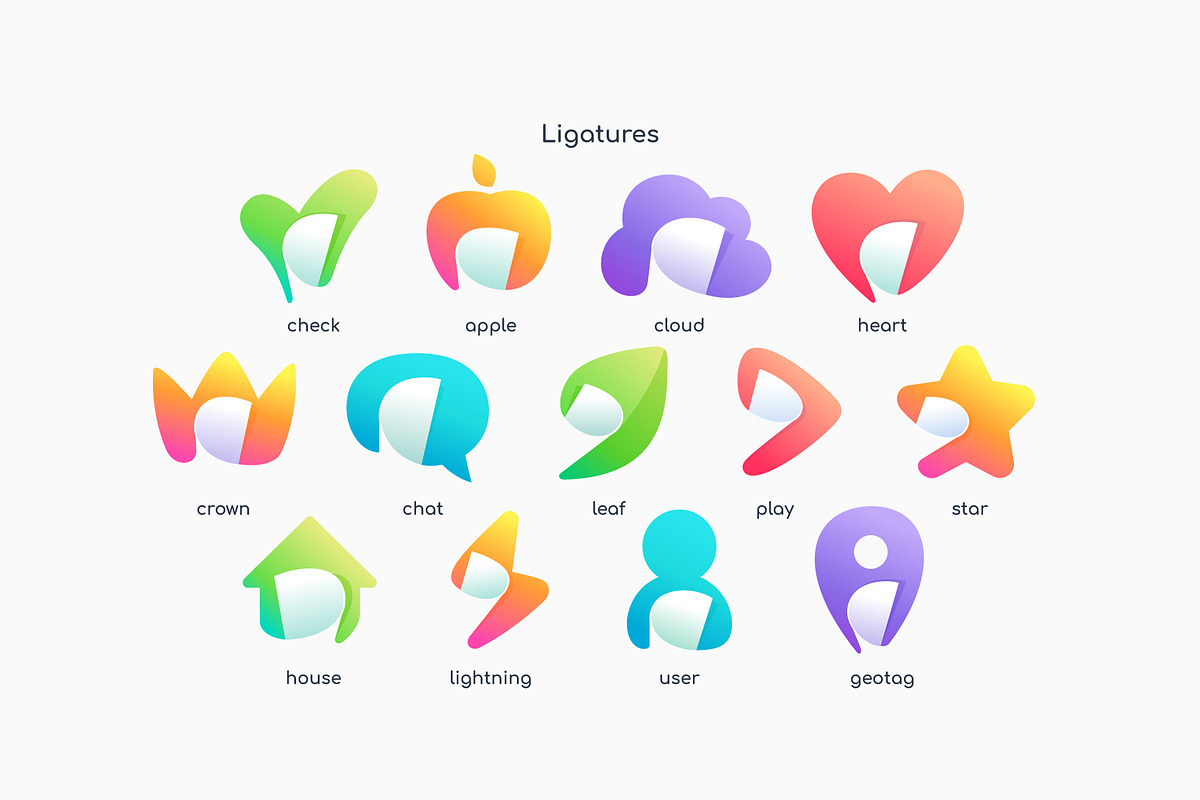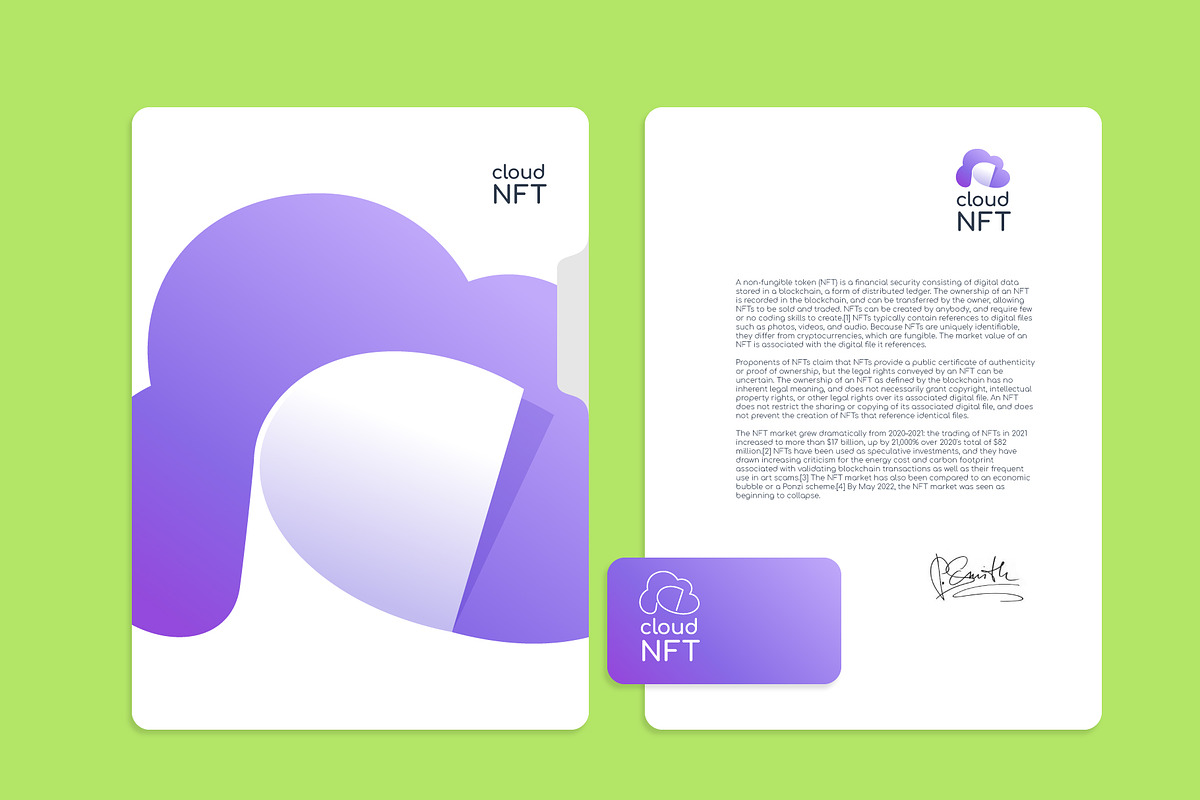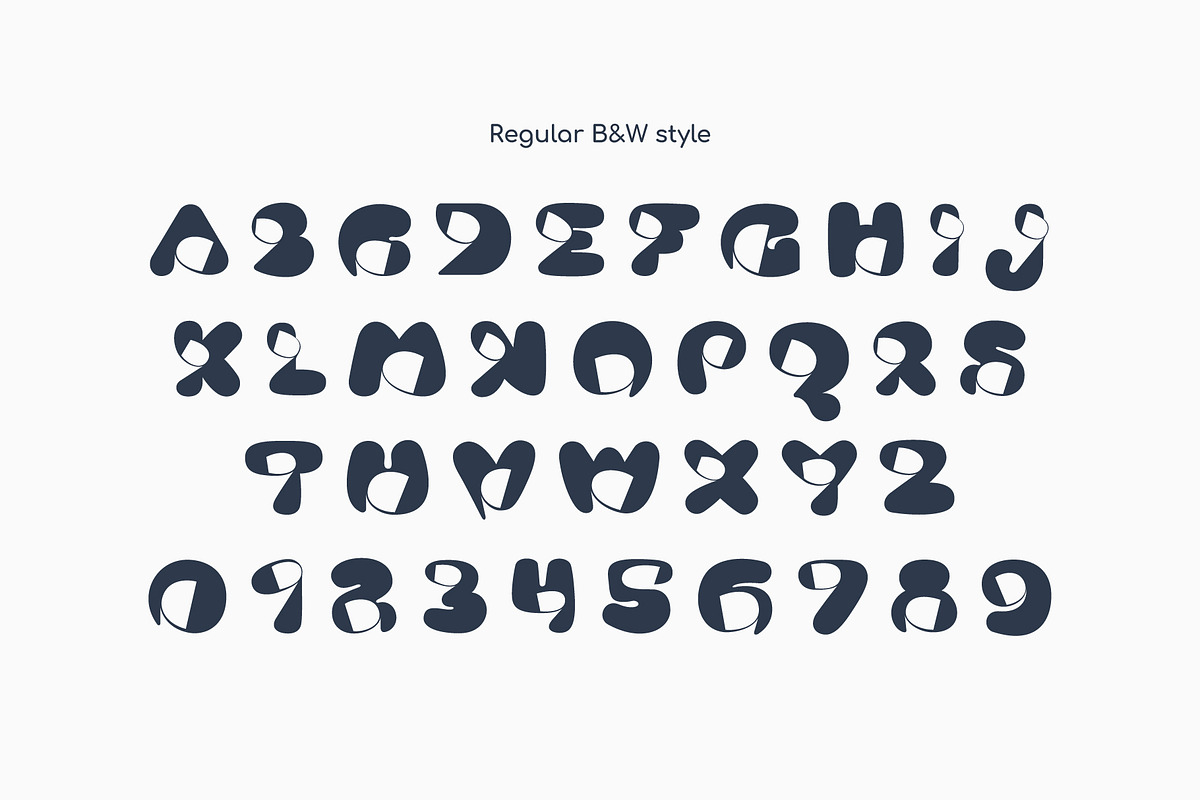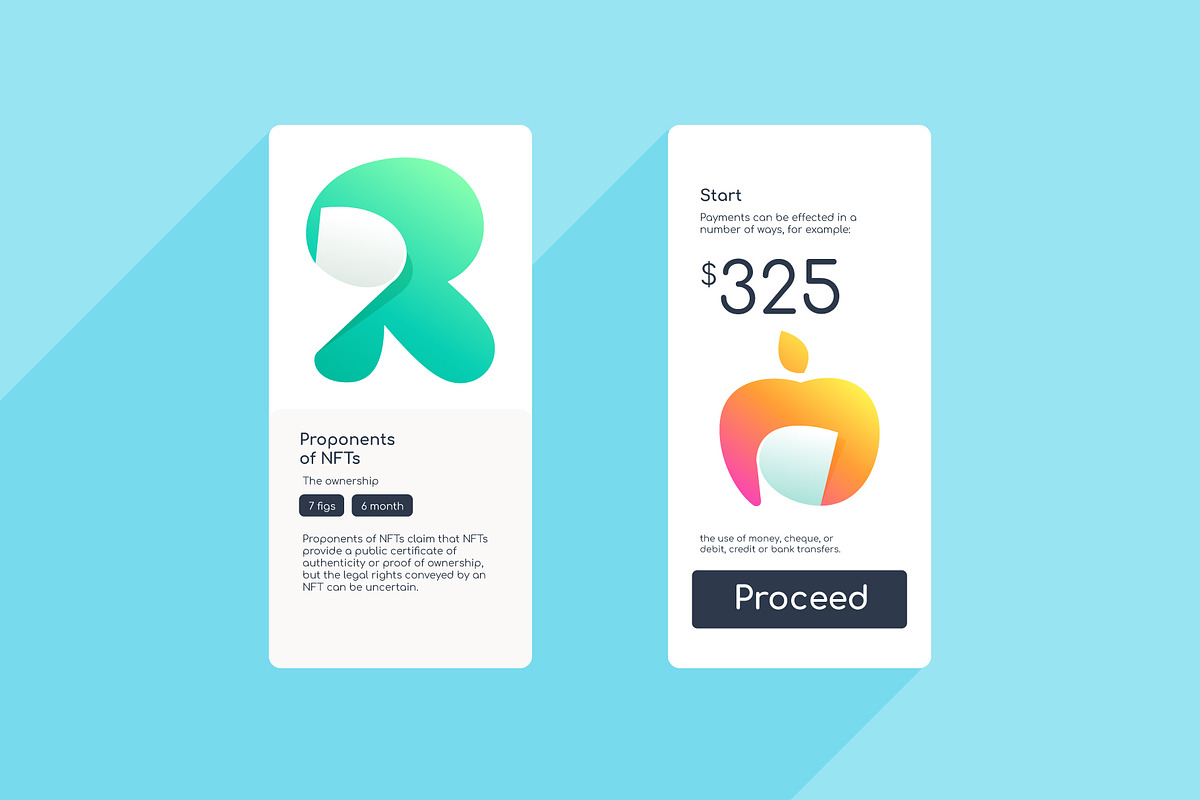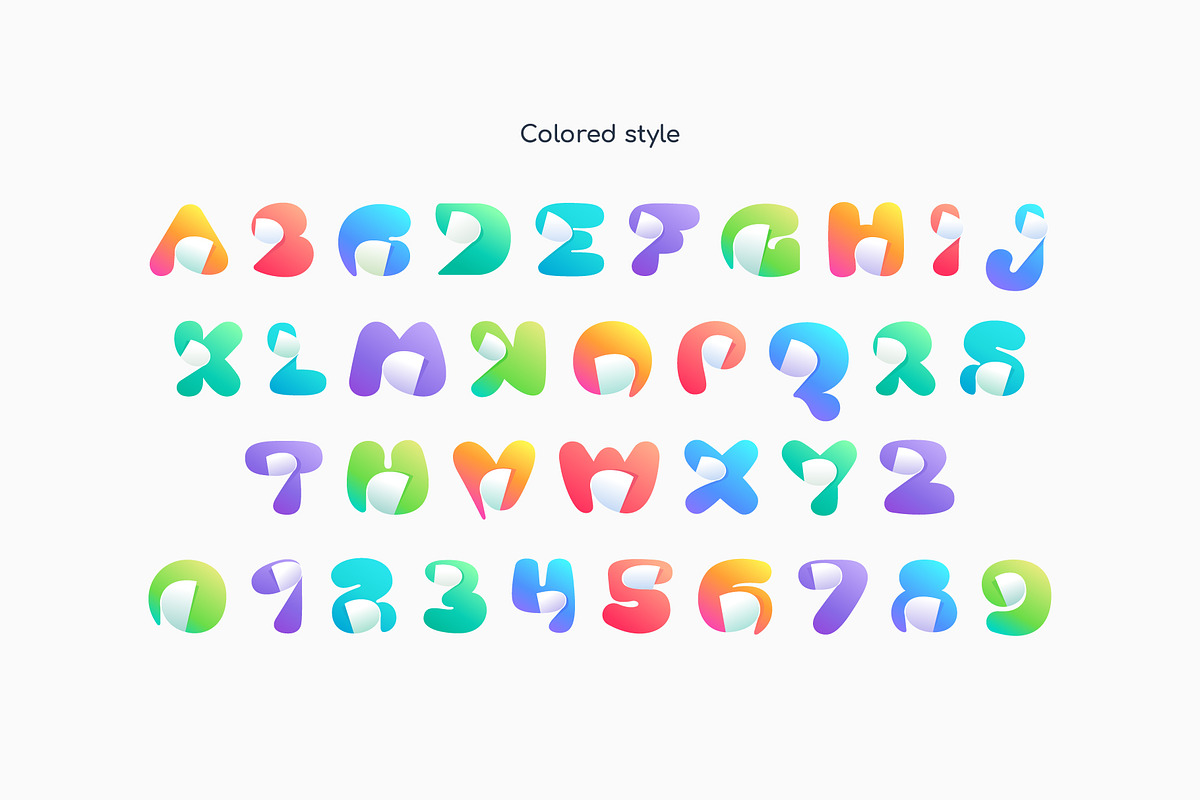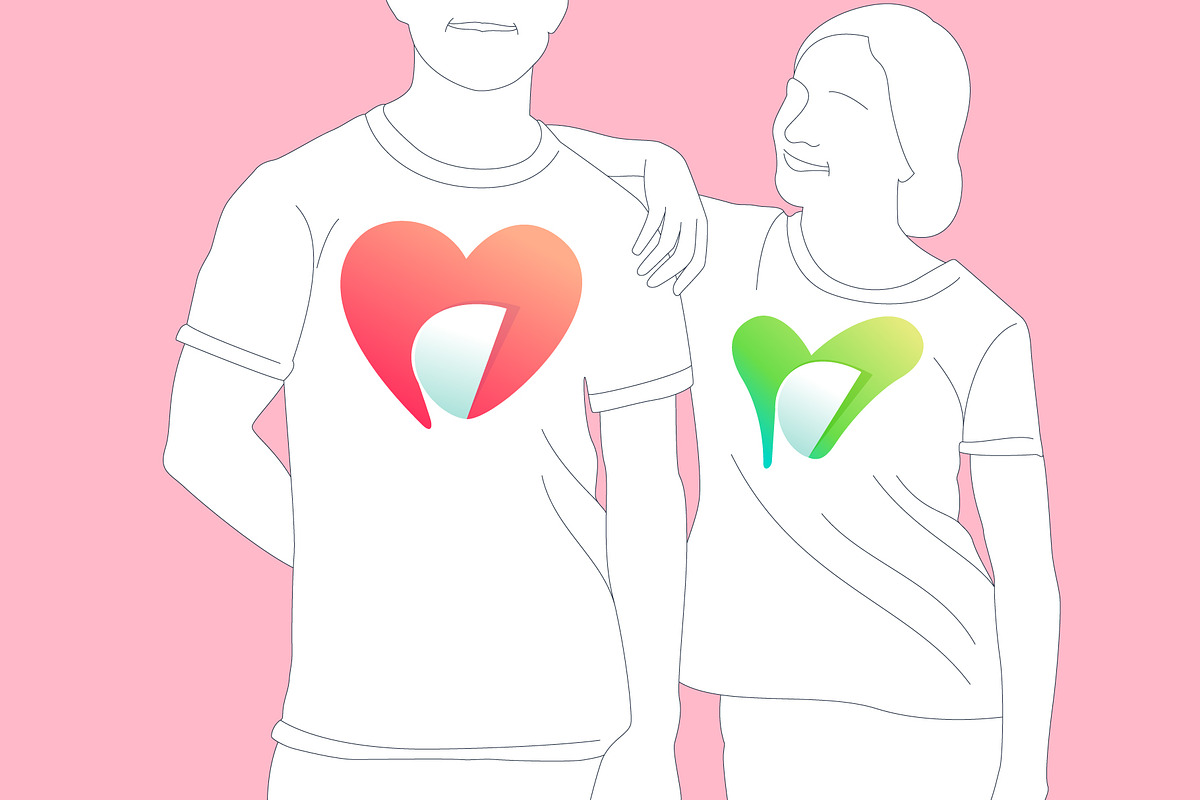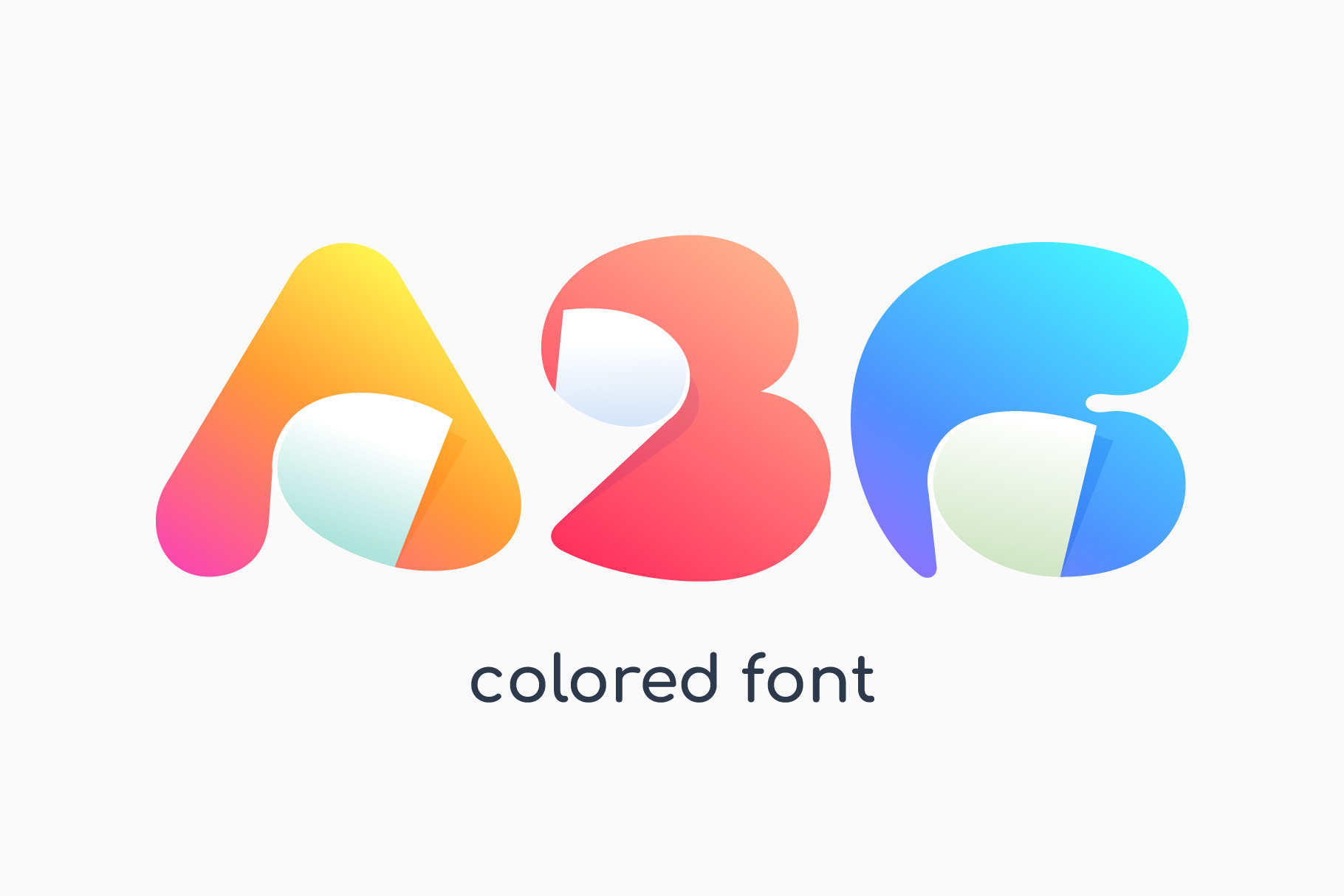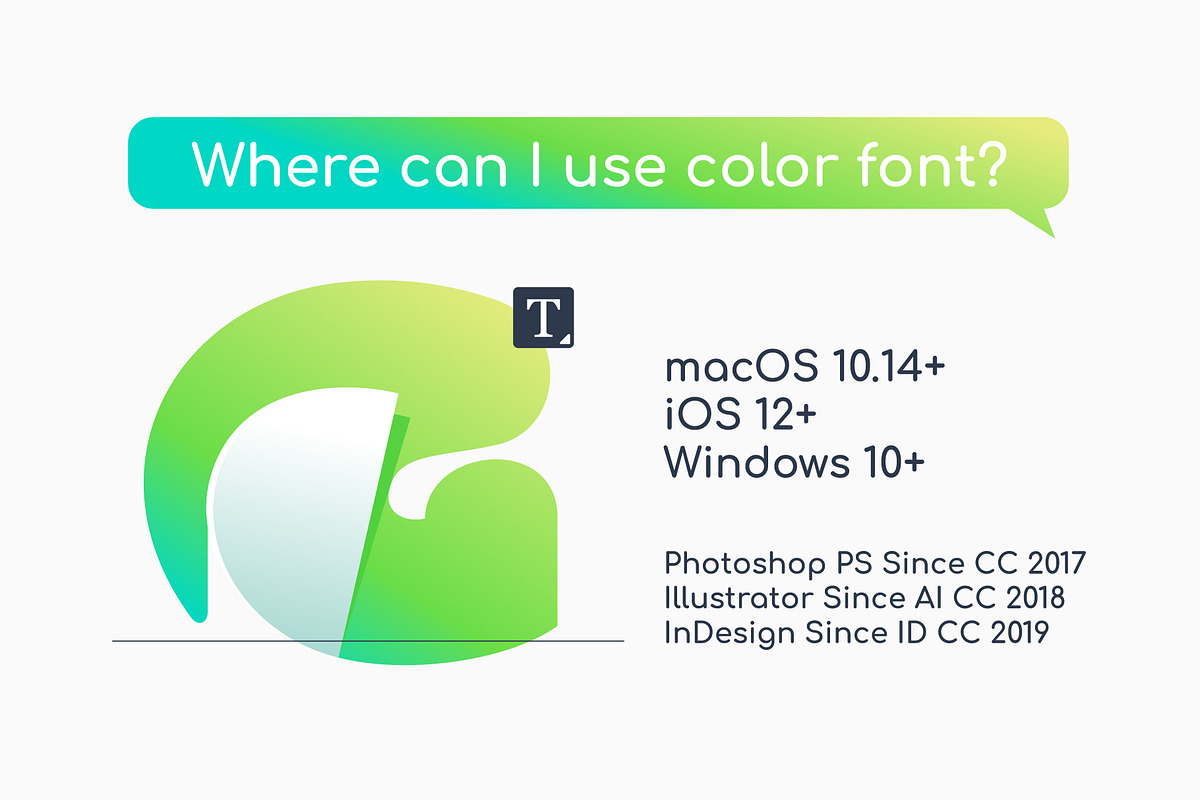
Curled Corner Colored Font
I’m here for you with my new colored font Curled Corner! Alphabet made of letters with curled corner. It’s looks like negative space style icons. Colorful gradient note paper. Modern clean vector origami font for your stickers, crypto app, nft identity, and tags.
All the letters in this font are colored brightly and vividly with corner overlay.
- Colored and B&W styles
- A-Z & Numbers
- BONUS icon (ligature) set